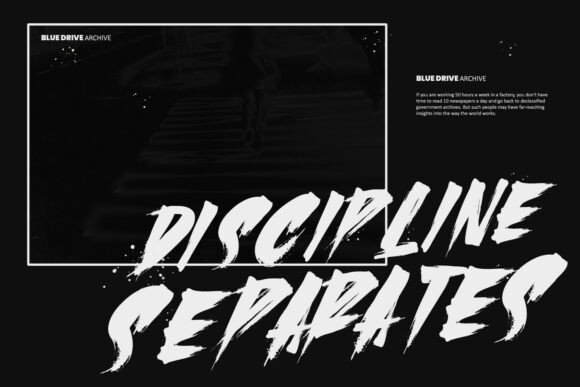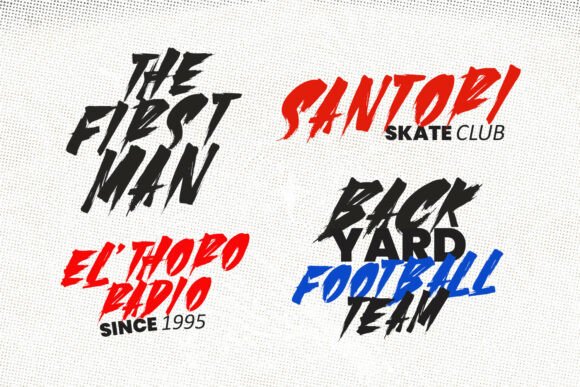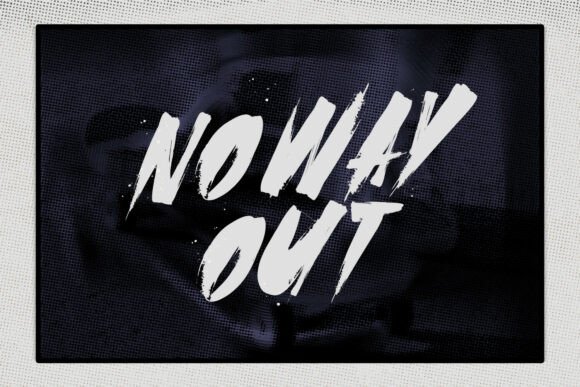
Introduction to Rigra Avonte Font
Rigra Avonte is a bold and energetic handmade brush font that bursts with raw attitude and expressive character.
Featuring aggressive brush strokes and dynamic angles, this display typeface is perfect for music posters, edgy branding, streetwear, sports promotions, and anything that needs a dose of fearless style Rigra Avonte captures a rebellious, handcrafted vibe that demands attention and adds a punch of personality to any design.